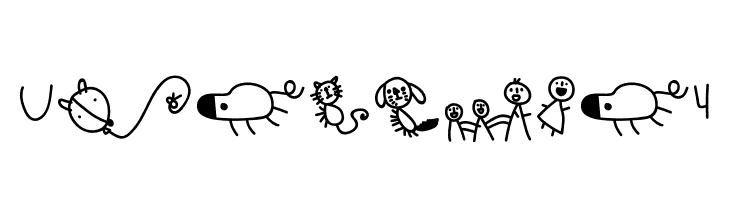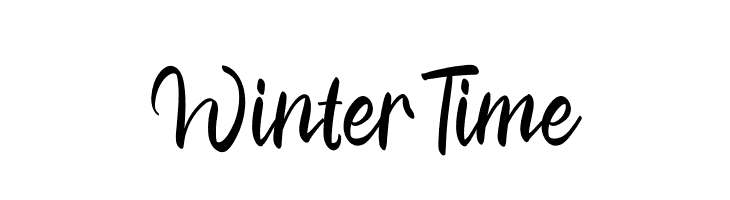
A whimsical, hand-drawn font with playful doodles and irregular strokes.
A bold, brush-style script font with high contrast and flowing, calligraphic strokes.
A graceful, cursive script font with an elegant, handwritten style.
A dynamic and elegant script font with fluid, cursive strokes.
A playful, elegant script font with vintage flair and decorative flourishes.
A geometric, angular font with a modern and technical aesthetic.
A decorative hollow font with intricate detailing and a modern twist on traditional serif styles.
A bold, condensed font with sharp angles and uniform stroke width.
A playful, whimsical script font with a hand-drawn appearance.
An elegant and flowing script font with ornate uppercase and complementary lowercase letters.